When you’re racing down the highway at 80 mph, you’ve got about 3 seconds to grab someone’s attention with your billboard. In those crucial moments, your font choice can make or break your entire advertising campaign.
As a designer who’s worked on countless outdoor advertising campaigns, I can tell you that billboard fonts are a completely different beast from what works on your laptop screen. What looks stunning in your design software might be completely illegible from 500 feet away.
Billboard typography isn’t just about being big and bold—though that certainly helps. It’s about creating maximum impact with minimal reading time, ensuring your message cuts through visual noise, and making split-second connections with drivers who are focused on the road.
In this comprehensive guide, we’ll explore the art and science of billboard fonts. From the towering sans-serifs that dominate Times Square to the custom letterforms that make brands unforgettable, we’ll break down exactly what makes a font work at highway speeds.
The Ultimate Collection of Billboard-Ready Fonts
Not all fonts are created equal when it comes to outdoor advertising. I’ve compiled the most effective billboard fonts that deliver maximum readability and impact from distances that matter. Here are the champions:
METZLER
METZLER is a minimal sans-serif typeface that embodies simplicity and clarity. Its clean lines and balanced proportions make it ideal for modern design projects, especially in digital environments where readability is crucial.
Qualivite
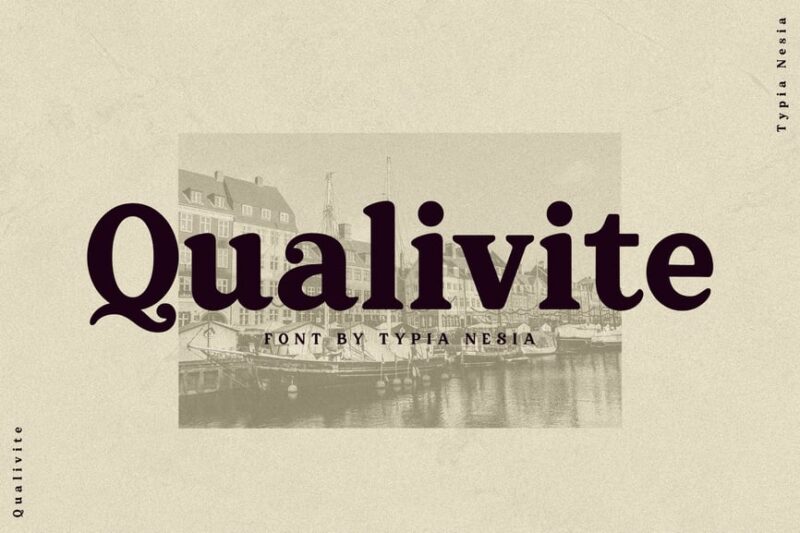
Qualivite is a bold serif font that combines vintage charm with contemporary flair. Its strong character and elegant serifs make it perfect for creating impactful headlines and adding a touch of sophistication to design projects.
Carientz
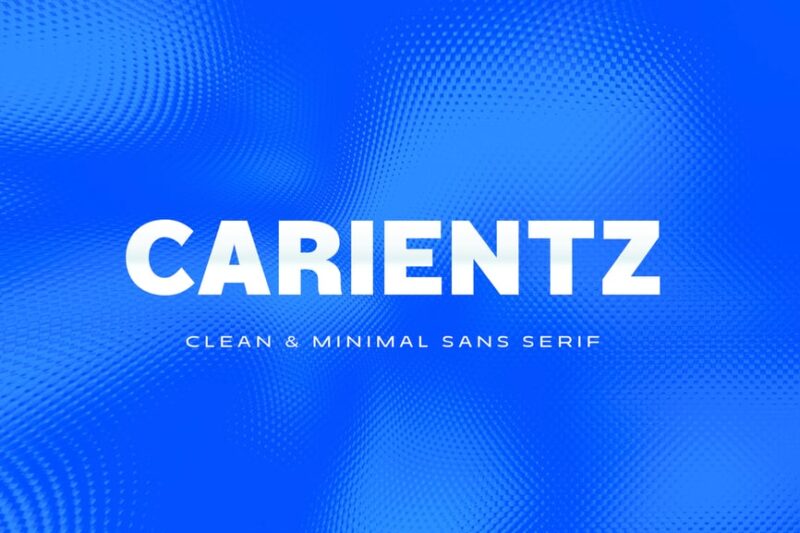
Carientz is a modern, minimal, and bold sans-serif font that exudes confidence and strength. Its clean, geometric shapes and thick strokes make it an excellent choice for branding, logos, and striking headlines in contemporary designs.
Glofin
Glofin is a modern and soft bold font that bridges the gap between vintage and contemporary styles. Its rounded edges and bold presence create a friendly yet impactful impression, suitable for a wide range of design applications.
RNS Guaire
RNS Guaire is a modern and elegant sans-serif font that exudes sophistication. Its refined lines and balanced proportions make it perfect for high-end branding, editorial design, and projects that require a touch of class.
Space
Space is a minimalist sans-serif font that embraces simplicity and functionality. Its clean, uncluttered design makes it highly legible and versatile, ideal for modern web design, user interfaces, and minimalist branding projects.
Lonzies
Lonzies is a display sans-serif font with a soft bold style that uniquely combines Christmas and graffiti influences. Its playful yet bold character makes it suitable for creating eye-catching headlines and designs with a urban, festive twist.
Boldy Grotesque
Boldy Grotesque is a condensed sans-serif font that embodies minimalism and strength. Its narrow letterforms, similar to the popular font Impact, and clean lines make it excellent for creating impactful headlines and efficient use of space in various design contexts.
Harlet
Harlet is a modern sans-serif font designed with headlines and fashion in mind. Its sleek, contemporary appearance and balanced proportions make it perfect for creating stylish designs in fashion magazines, posters, and branding materials.
Alaska
Alaska is an adventure-inspired sans-serif typeface that combines minimalism with a nostalgic feel. Its clean lines and subtle vintage touches make it ideal for outdoor-themed designs, travel branding, and projects that aim to evoke a sense of exploration.
NORD
NORD is a minimal display typeface designed for headlines and logos. Its clean, geometric forms and versatile character make it an excellent choice for modern branding projects, creating impactful headlines, and designing memorable logos.
MARXURE
MARXURE is a bold headline typeface with a modern edge. Its strong presence and contemporary design make it perfect for creating attention-grabbing headlines in web design, posters, and other media where impact is crucial.
Girast
Girast is a modern condensed font that combines boldness with efficiency. Its narrow letterforms and contemporary style make it ideal for designs where space is at a premium, such as in packaging, posters, and responsive web design.
So the next time you’re cruising down the highway, pay attention to the fonts flying past your windshield. Notice which ones grab your attention and which ones blend into the background. That’s the difference between typography that works and typography that simply exists.
Your billboard has seconds to make an impression. Make sure your font choice makes those seconds count.